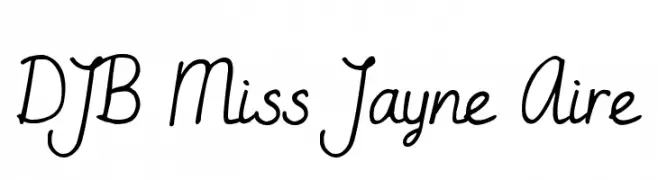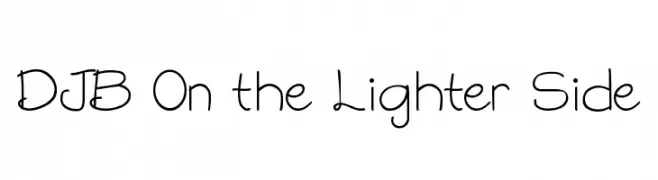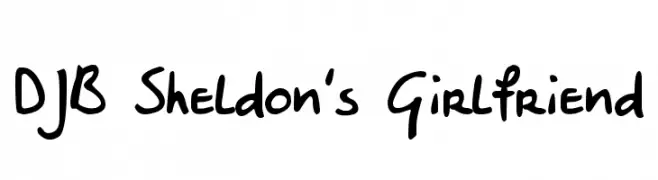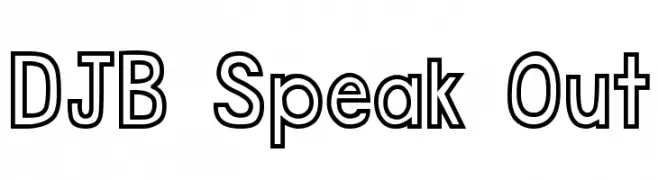
• DJB Merry
A playful, handwritten font with a casual and friendly style.
• DJB Miss Jayne Aire
A playful, cursive handwritten font with a casual and friendly style.
• DJB On the Lighter Side
A playful handwritten font with smooth, rounded letterforms and a whimsical style.
• DJB Sheldon's Girlfriend
A playful, casual handwritten font with a friendly vibe.
• DJB Speak Out
A bold, outlined font with a playful and modern style.
• DJB The Font that is Liz
A playful, casual handwritten font with a natural, creative flair.
• DJB This Font is Bold Bold
A bold, playful font with a hand-drawn, whimsical style.
• DJB This Font is Empty Bold
A playful, bold, and hollow font with whimsical, outlined characters.
• DJB Vintage Find
A bold, hand-drawn font with a vintage, textured style.
• DJB Vintage Find Distressed Bold
A bold, distressed font with a vintage, handcrafted appearance.